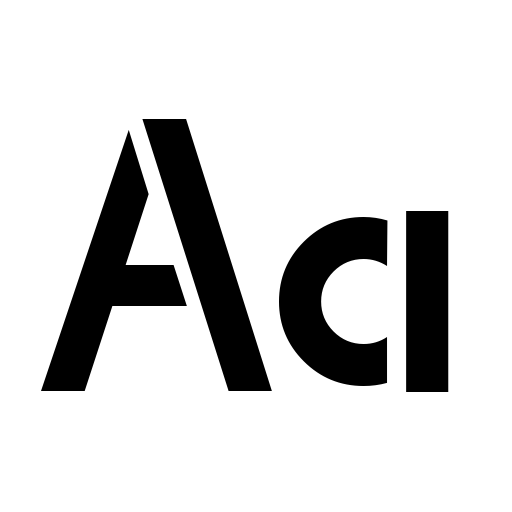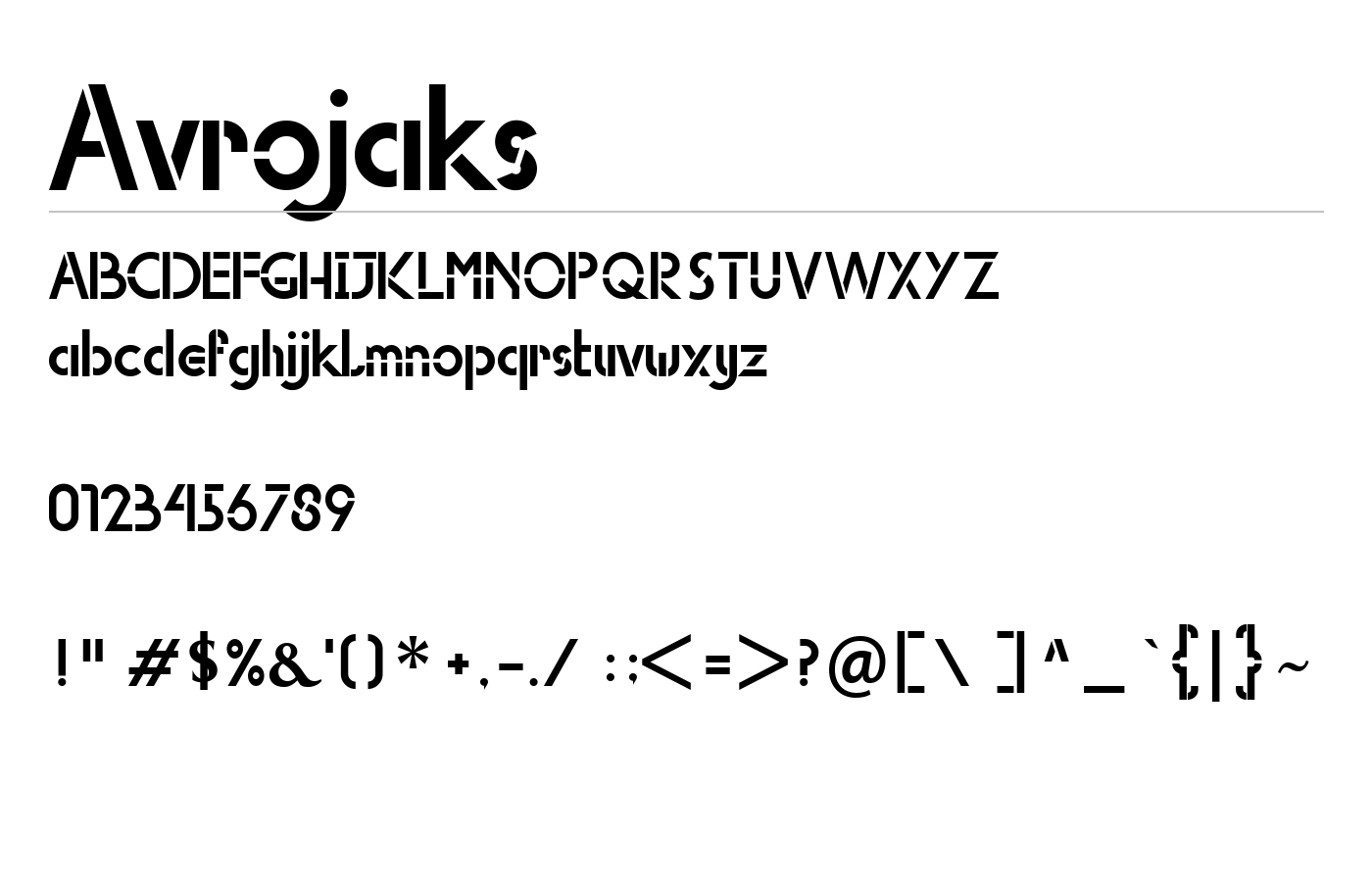
Avrojaks is a bold and modern sans serif font with a unique geometric and stencil-inspired style. Its sharp angles, varied stroke widths, and distinctive cutouts give it a futuristic and edgy personality, perfect for striking headlines, logos, and creative branding that need a strong visual impact. This font works best in display contexts where its artistic and unconventional letterforms can stand out and add a dynamic, contemporary feel.
Avrojaks Font
About Avrojaks Font
| Designer | Fadly Hedi Harahap |